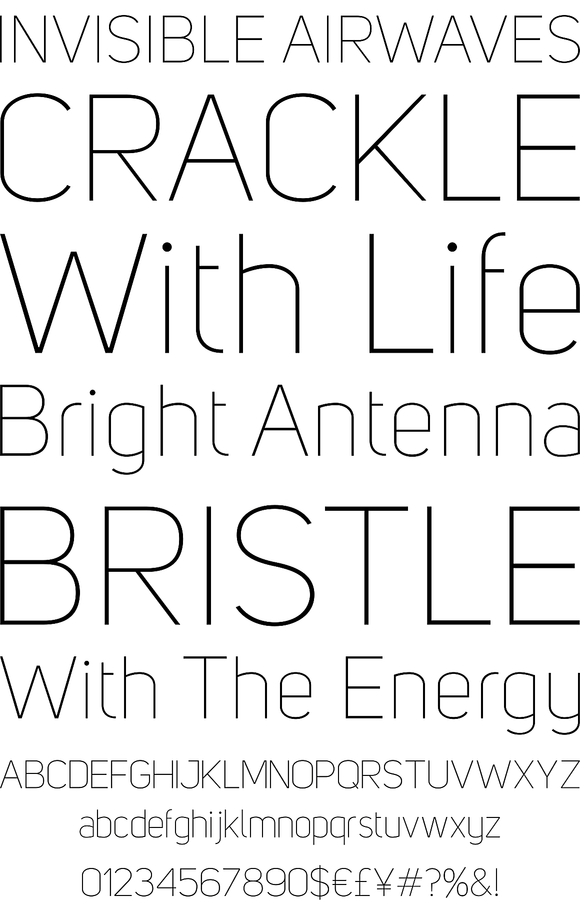
Foundry: Fontfabric
Fontfabric looking for a type that will work in blocks of text for callouts, captions and headlines will find that unique balance with Uni Sans - a custom sans font which is applicable for any type of graphic design - web, print, motion graphics etc and perfect for t-shirts and other items.